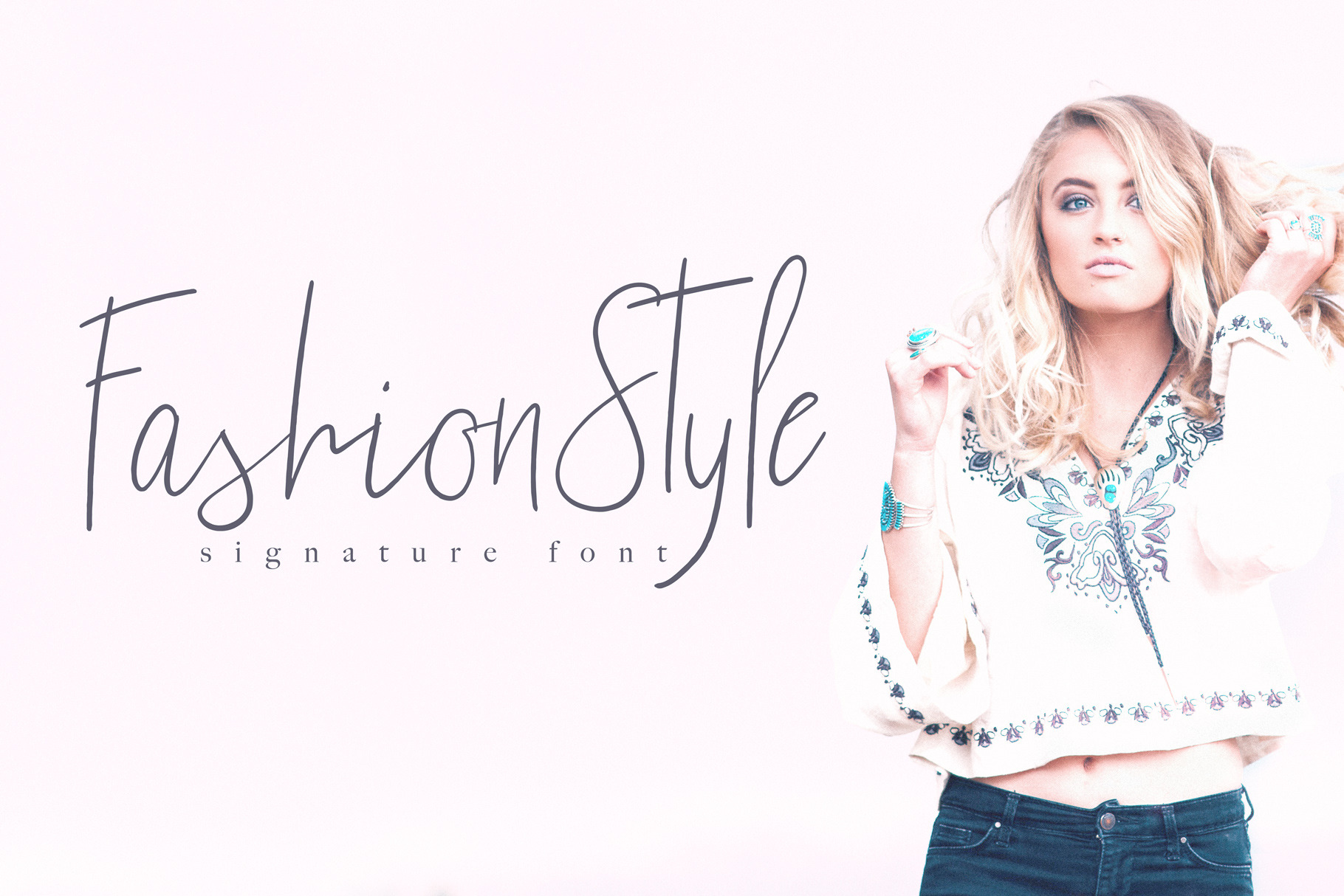
Fashion Style Font
Fashion style is a contemporary sophisticated stylish font. Ii is perfect for modern branding, social media, blogs, modern stationery, product packaging or wedding invites.
This font family includes 4 lowercase and 3 uppercase sets plus ligatures of most common letter pairs. With so many options you can easily give your texts the organic handwritten look - no repeating letters!
Main features:
- 4 lowercase sets
- 3 uppercase sets
- many ligatures